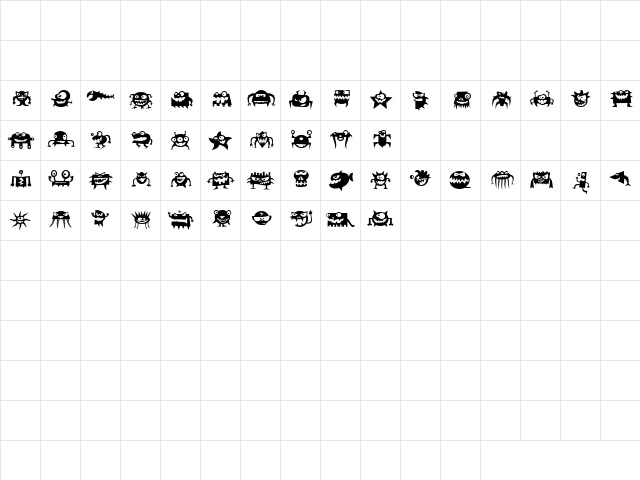
Mutaints Xtra Regular
Design Context for Mutaints Xtra Typeface
Mutaints Xtra is a composed and adaptable typeface that performs quietly and consistently across a wide range of design contexts.